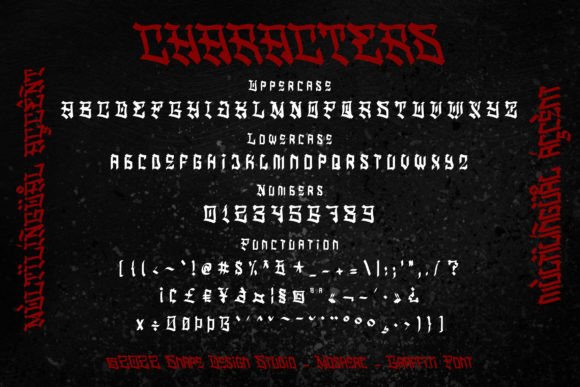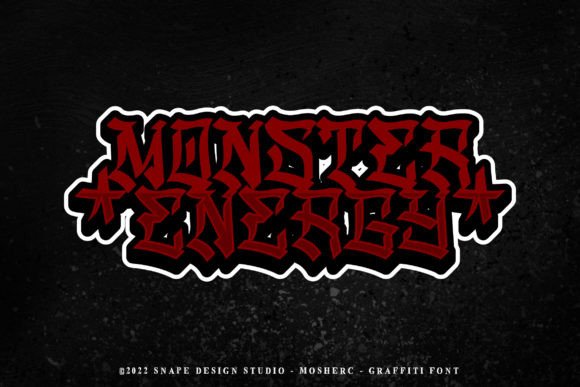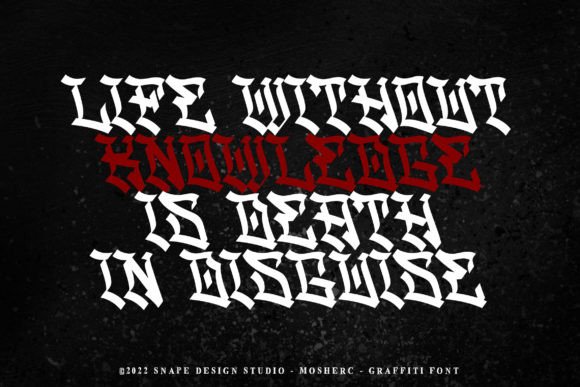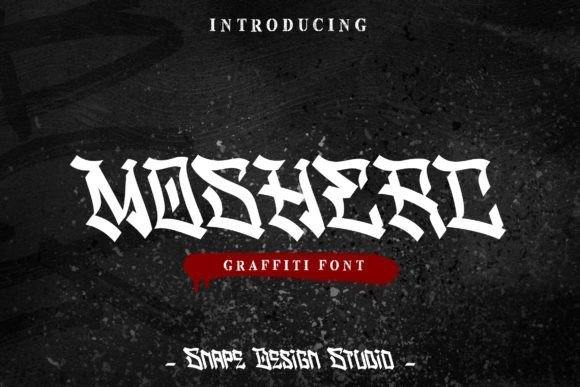
Introduction to Mosherc Font
Mosherc is a cool and trendy display font inspired by typical street art calligraphy.
Its urban, hip, graffiti-style characters are perfect for adding an authentic touch to each of your projects .